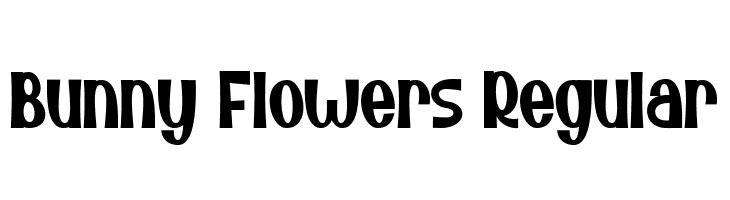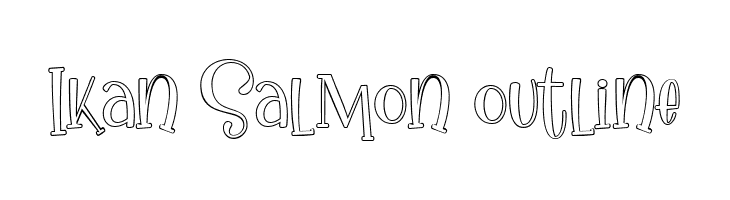
( Fonts by Gilar Studio )
A playful, modern outline font with rounded, bold characters.
( Fonts by Gilar Studio )
A bold, playful script font with rounded characters and a modern flair.
( Fonts by Gilar Studio )
A playful, outlined font with a hand-drawn, cartoonish style.
( Fonts by Gilar Studio )
A playful, bold font with a shadow effect, ideal for creative projects.
( Fonts by Gilar Studio )
A playful, bold font with rounded, whimsical characters.
( Fonts by Gilar Studio )
A playful, hand-drawn outline font with smooth curves and a whimsical style.
( Fonts by Gilar Studio )
A playful, bold decorative font with a shadow effect and rounded, elongated characters.
( Fonts by Gilar Studio )
A whimsical, playful font with bold, expressive characters and a unique flair.
( Fonts by Gilar Studio )
A playful, hand-drawn outline font with a whimsical and casual style.
( Fonts by Gilar Studio )
A playful, hand-drawn font with a bold shadow effect, ideal for creative designs.